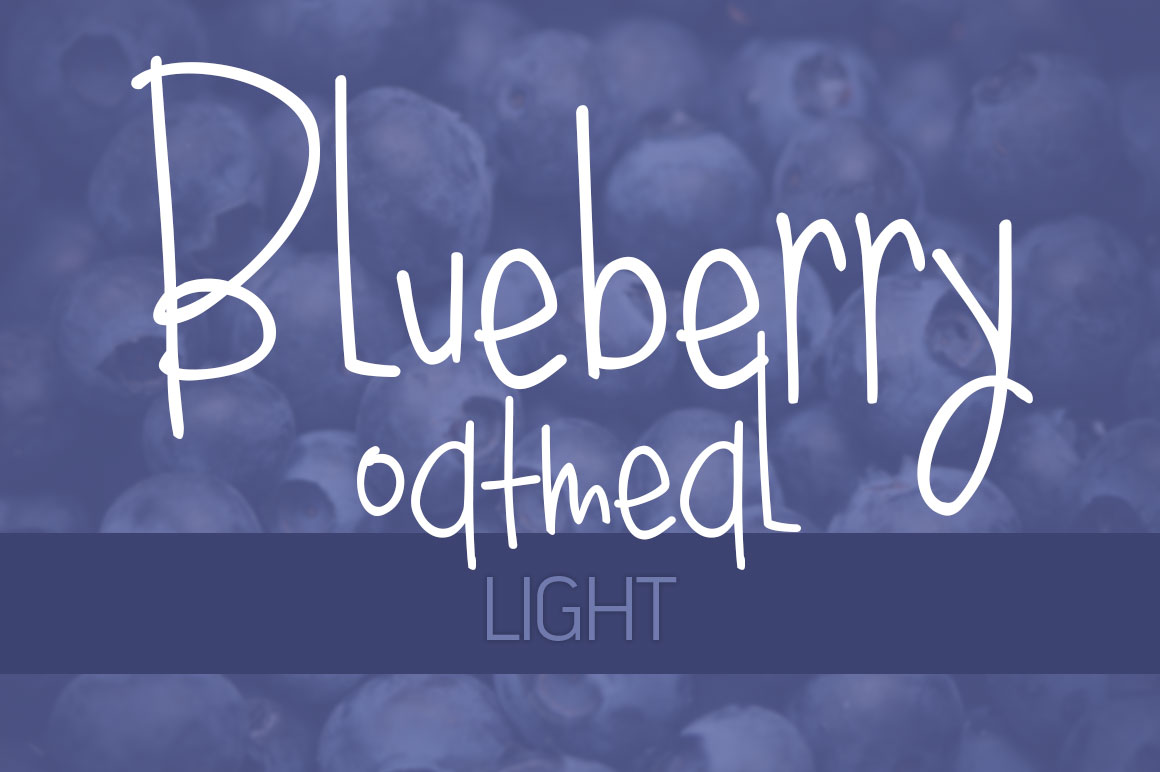
The Blueberry Oatmeal Light Font: A Fun and Quirky Handwritten Typeface
I’ll never forget the design project that led me to discover the Blueberry Oatmeal Light Font. I was working on a whimsical craft project, aiming to create a playful and eye-catching label. My client wanted a font that was both fun and elegant, but I was struggling to find the perfect fit. That’s when I stumbled upon Blueberry Oatmeal, and it instantly became my go-to choice.
• ✨ Unique and playful handwritten style with varying letter heights and sizes
• ✅ Easy to read, even in smaller sizes
• 💕 Perfect for crafty projects, invitations, and social media graphics
• 🎉 Highly versatile and adaptable to different design contexts
While Blueberry Oatmeal is an amazing font, there are a few things to keep in mind:
• ⚠️ Some letters may appear a bit inconsistent in size or shape, which can be a minor distraction
• 🤔 Limited availability of extended language support
The Story Behind Blueberry Oatmeal
Blueberry Oatmeal was designed with the intention of creating a fun and quirky handwritten typeface. The designer aimed to capture the playful and creative spirit of a warm, comforting bowl of oatmeal with fresh blueberries. The result is a unique and charming font that’s perfect for a wide range of design projects.
Font Name Blueberry Oatmeal Light Font
Q: What makes Blueberry Oatmeal a great choice for crafty projects?
A: Blueberry Oatmeal’s playful and whimsical style makes it an excellent fit for crafty projects, such as DIY labels, party invitations, and handmade cards.
Q: Is Blueberry Oatmeal available in different weights or styles?
A: Currently, Blueberry Oatmeal is available in a single weight. However, the designer may release additional styles or weights in the future.